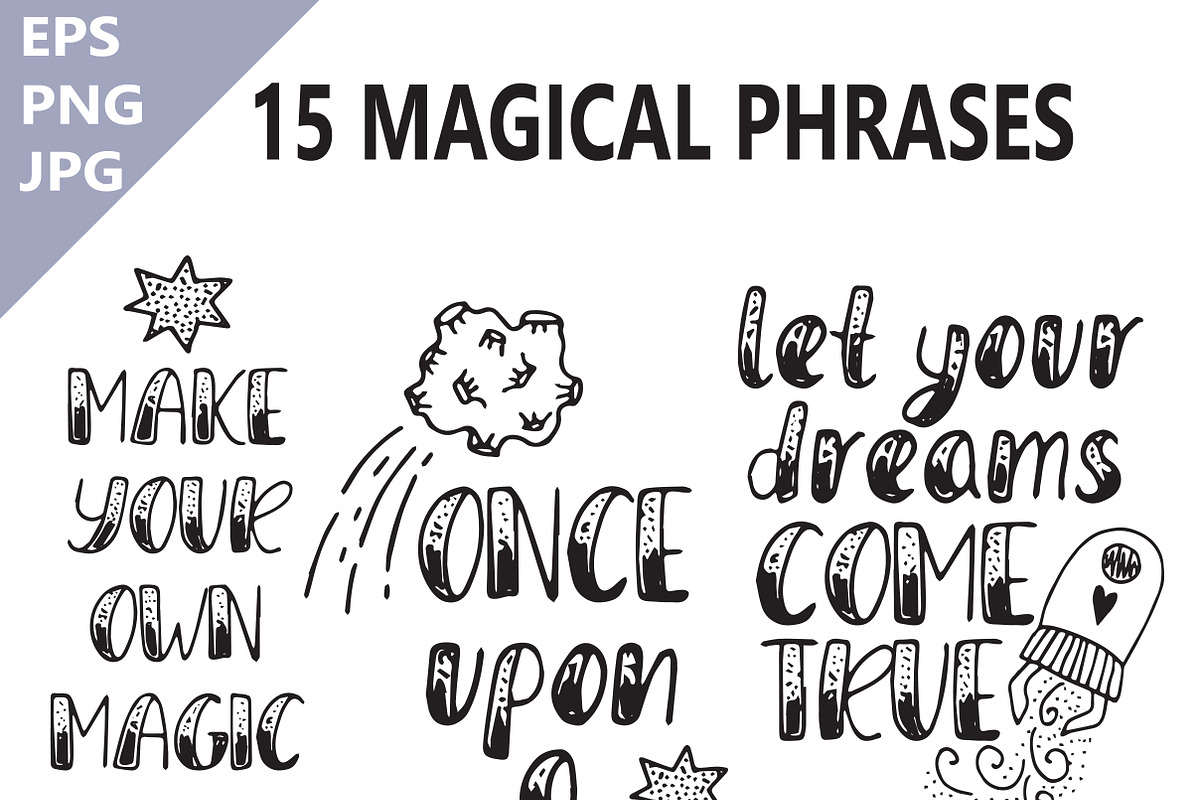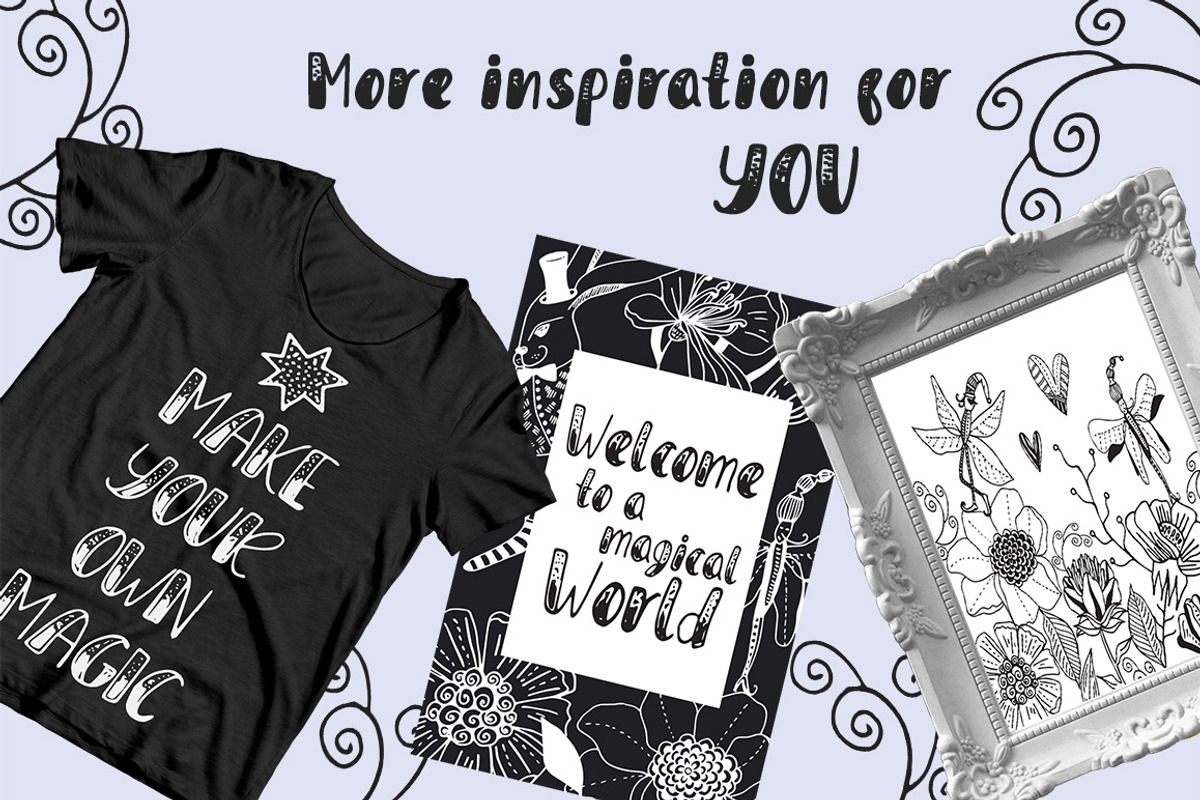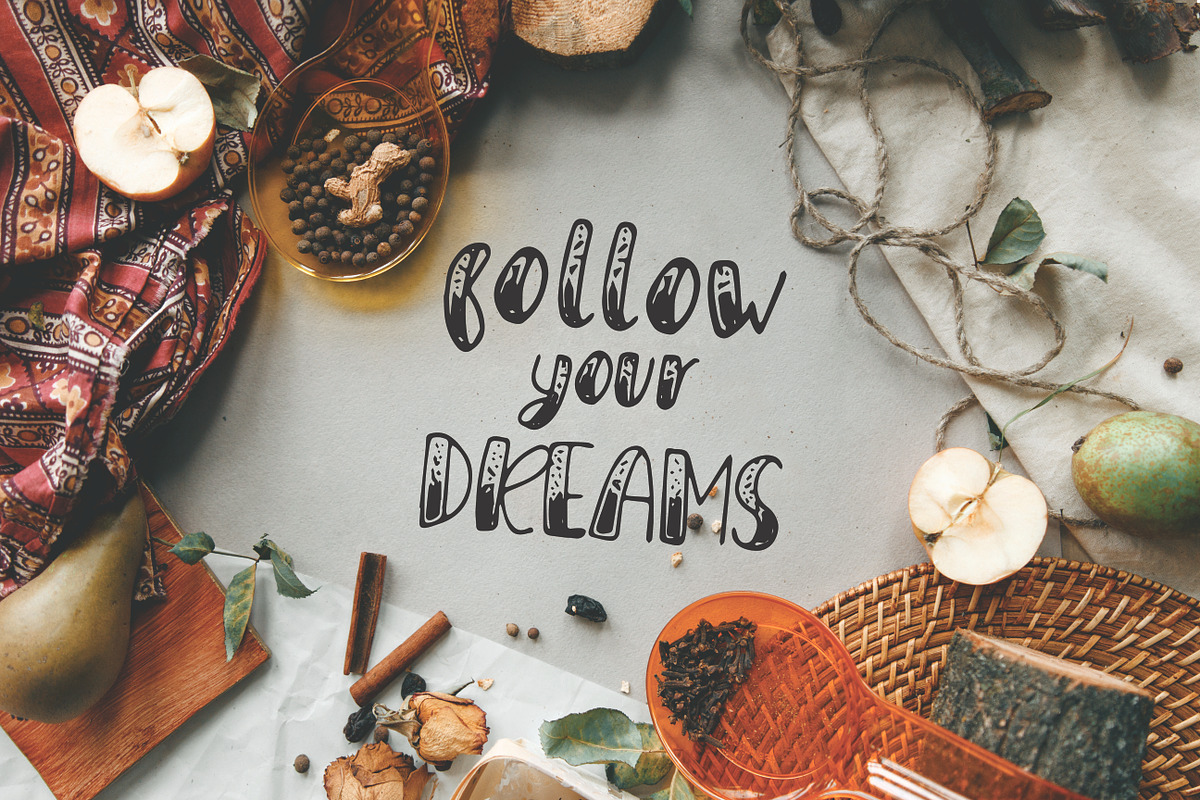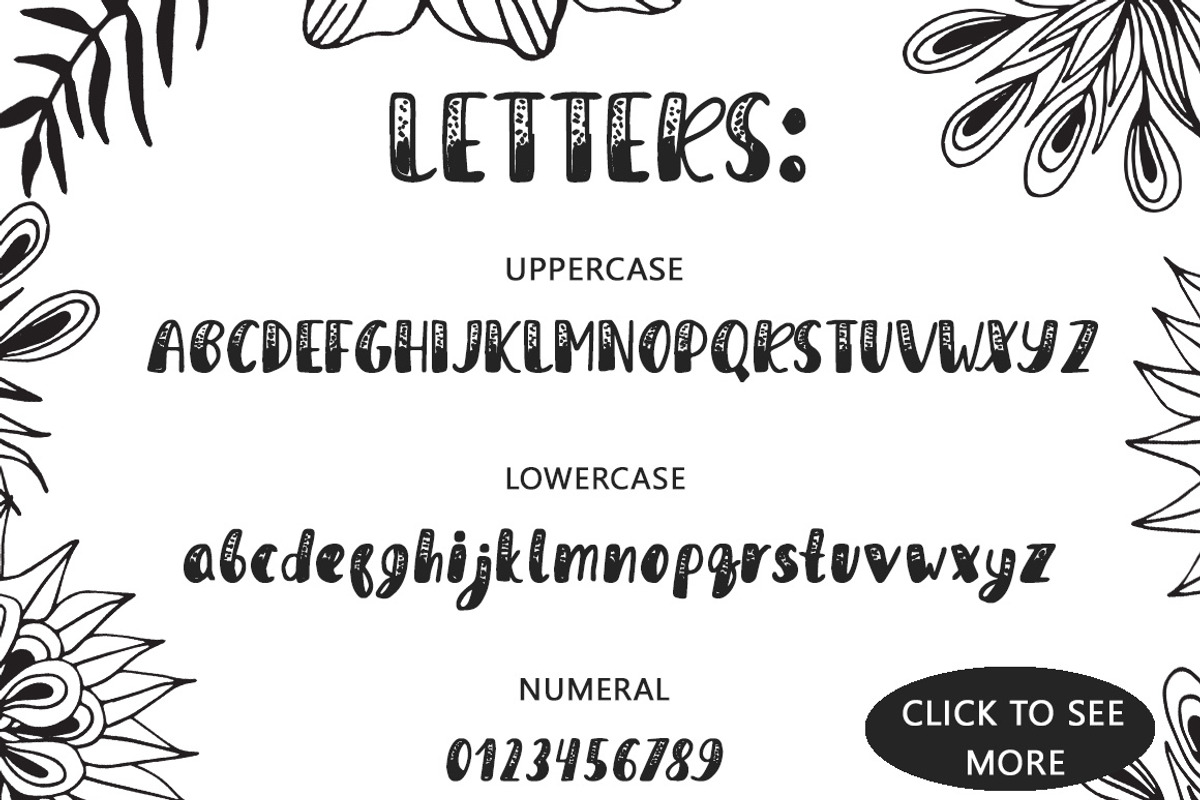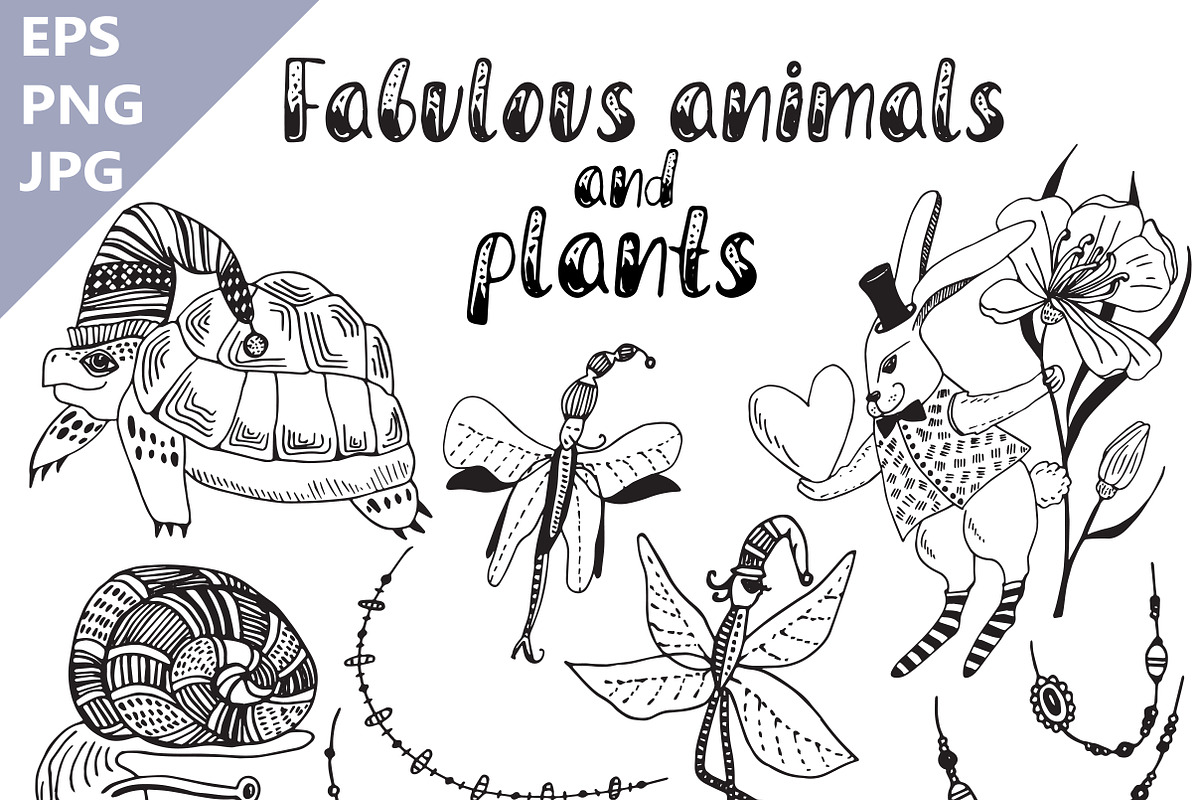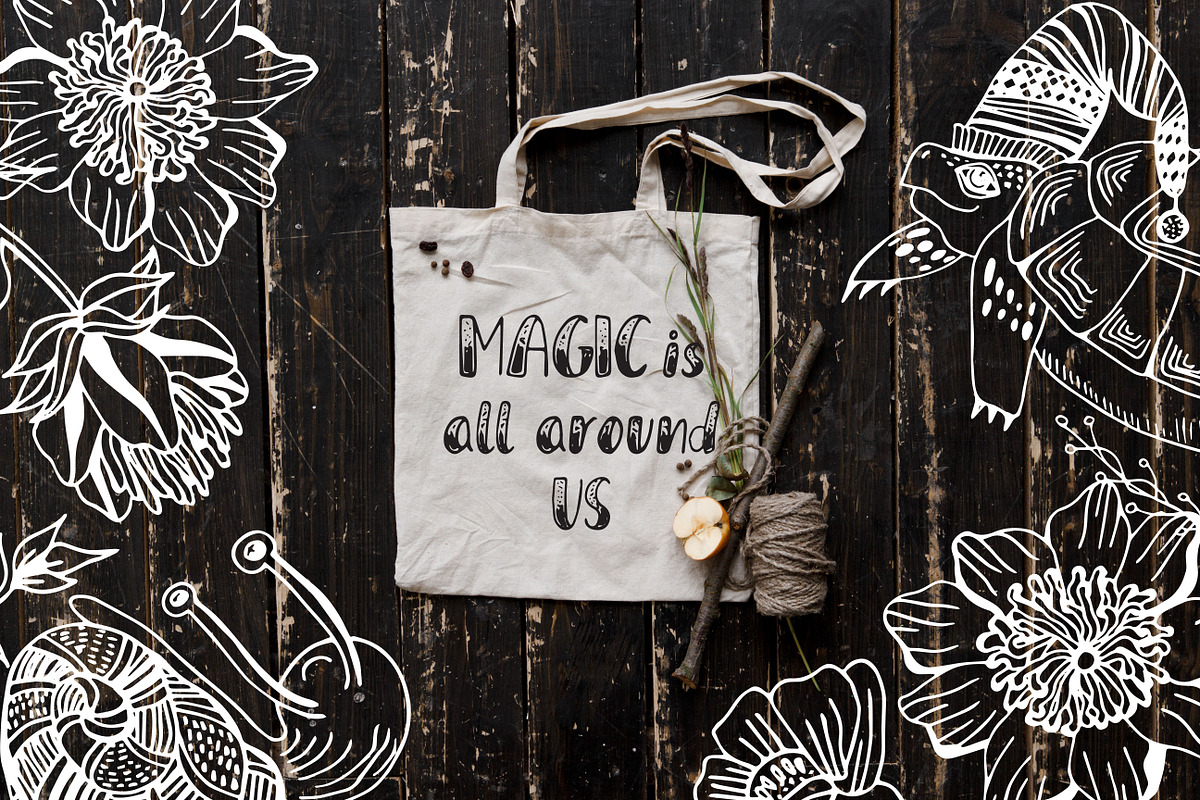
Magical Powder - typeface & elements
Magical Powder typeface with BONUS - cute elements and lettering! This font is perfect for prints, cards, illustrations and decoration. Cute collection of fabulous animals and plants in vector for your design! More inspiration for you with magical phrases :) Enjoy!
- Magical Powder typeface
- 42 fabulous animals and plants
- 15 magical phrases
- Magical Powder typeface
- 42 fabulous animals and plants
- 15 magical phrases